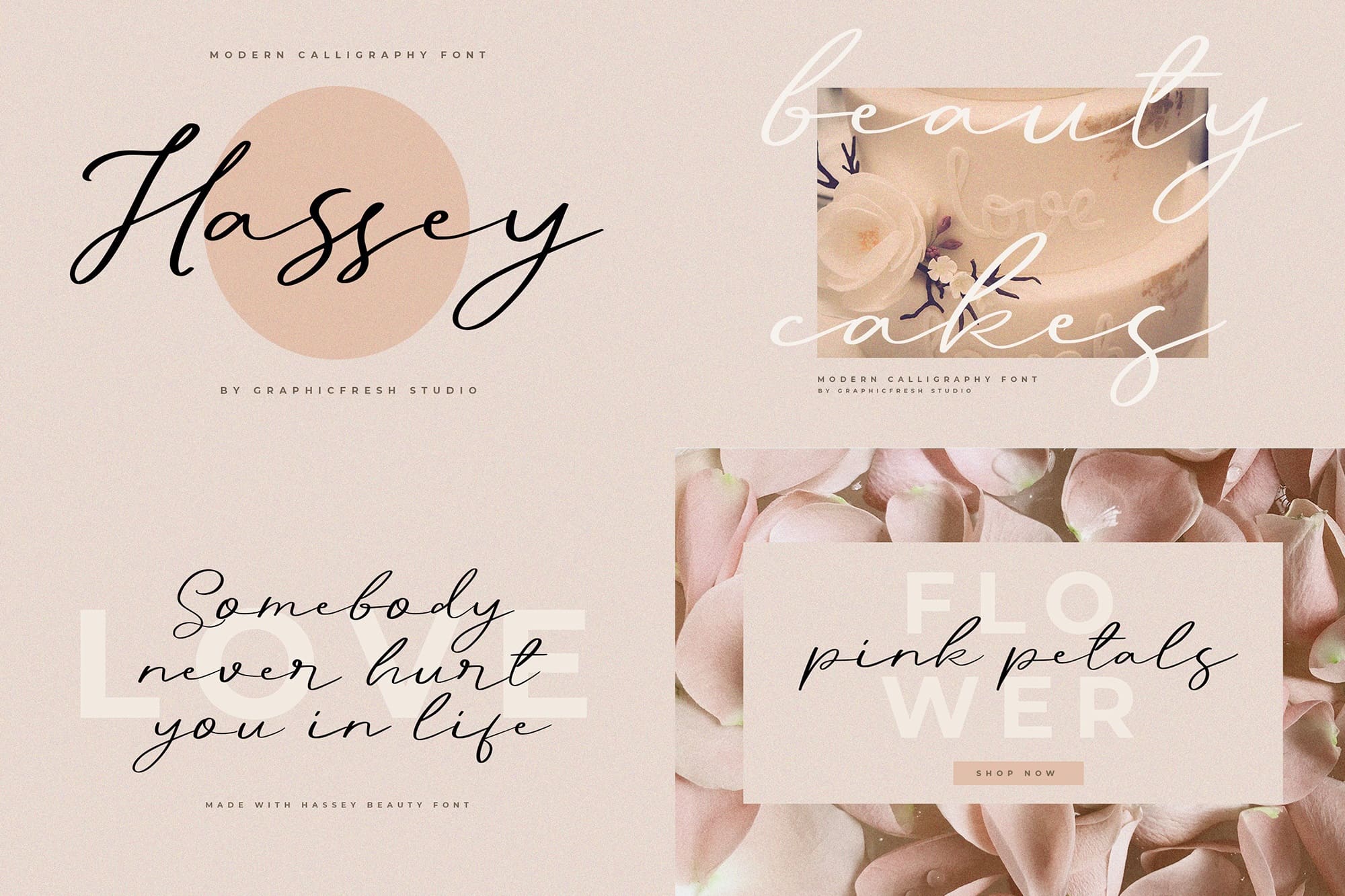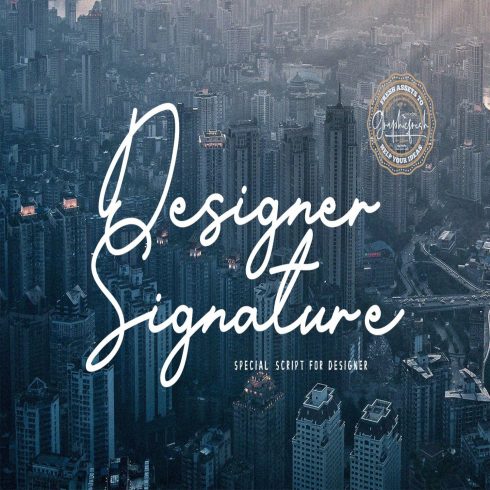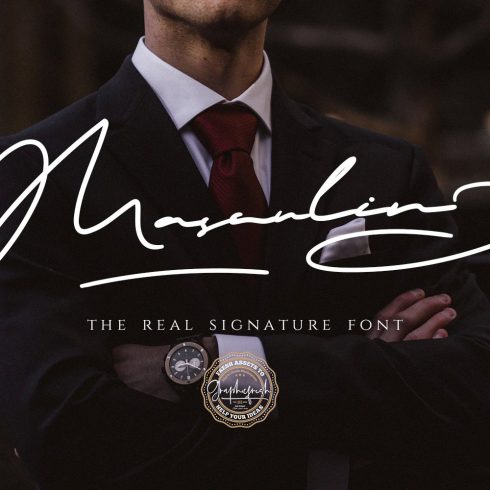
Modern Signature Fonts Description
Modern Signature Fonts. There are 10 fonts that I collected in this bundle. Each font that I create has its own characteristics, so each other is not the same. You can use this font for signature purposes. And it’s very nice and fits well.
Modern Signature Fonts Previews